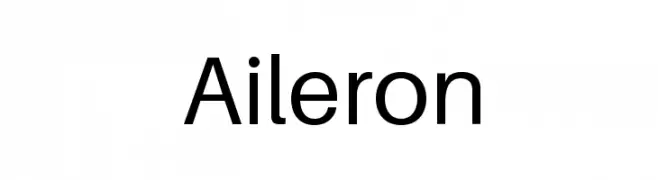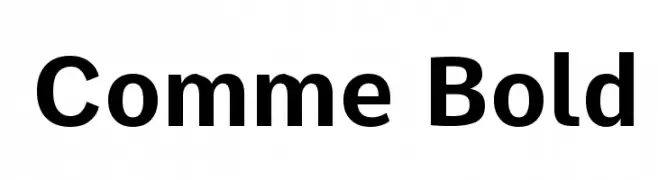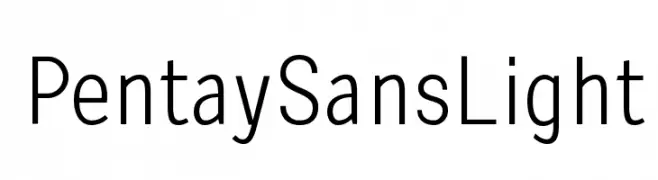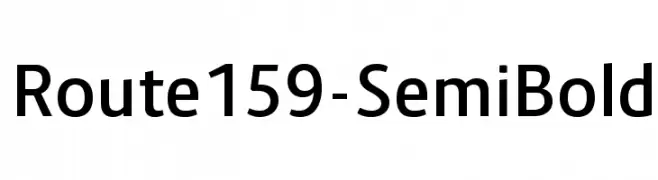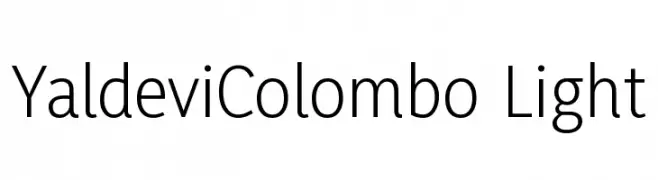
A modern, geometric sans-serif font with excellent readability.
A bold, condensed sans-serif font with clean lines and excellent readability.
A bold, modern sans-serif font with clean lines and excellent readability.
A modern, geometric sans-serif font with clean lines and excellent readability.
A modern, semi-bold sans-serif font with excellent readability and a professional appearance.
A modern, light sans-serif font with clean lines and excellent readability.
A modern, light sans-serif typeface with clean lines and excellent readability.
A bold, modern sans-serif font with a geometric structure and excellent readability.
A modern, light sans-serif font with excellent readability and uniform design.
A modern, italic sans-serif font with clean lines and excellent readability.